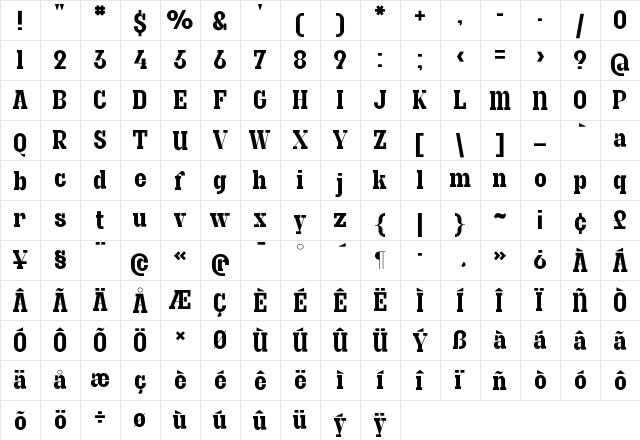
Granite Regular Font Preview
Granite Regular
Design Context for Granite Typeface
Granite takes a measured approach to typography — its balanced proportions and neutral character make it a reliable workhorse for both digital and print work.